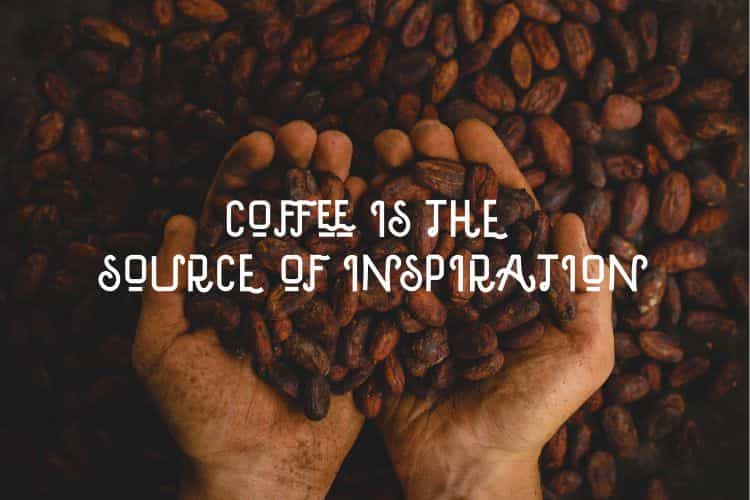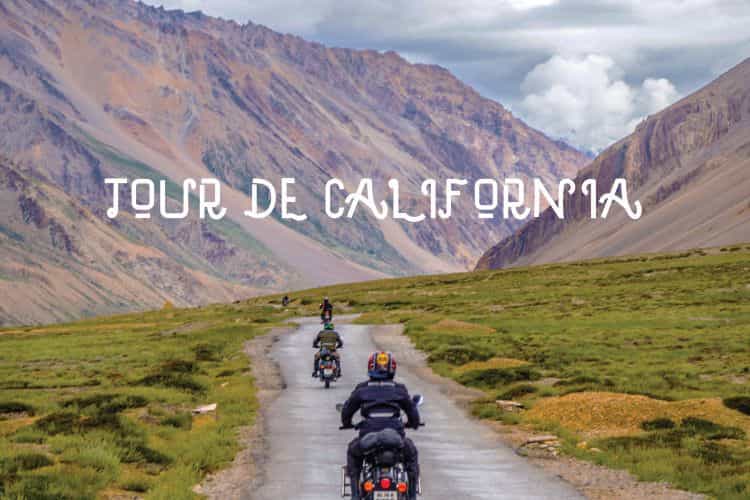
As for Davina, I created it for display and it can be employed in logos with a vintage look, flyers, brochures, leaflets and so on. If you prefer a logo that has somewhat of a vintage feel to it, thick, not overly complicated and still stylish, then you should have Davina! This font also comes with full support to Multi-Lingual and has more than fifteen Ligatures.